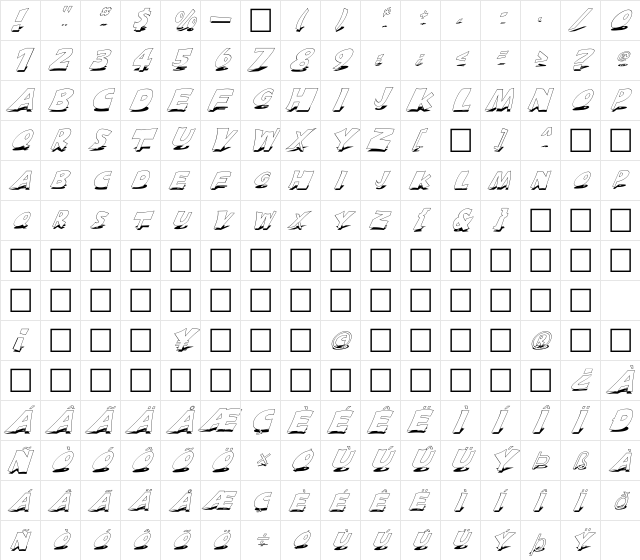
FZ JAZZY 10 SHADOW ITALIC Normal
Design Context for FZ JAZZY 10 SHADOW ITALIC Typeface
FZ JAZZY 10 SHADOW ITALIC brings ornamental detail and strong personality to headlines and identities, where visual impact matters more than quiet functionality. The slanted form adds forward momentum and visual energy.
Font Pairing: Pair with a clean neutral sans-serif for body copy to let FZ JAZZY 10 SHADOW ITALIC's character lead without overwhelming the composition.
Pro Tip: Treat FZ JAZZY 10 SHADOW ITALIC as the centrepiece of your typographic hierarchy. One strong heading set in a decorative face can carry an entire layout.